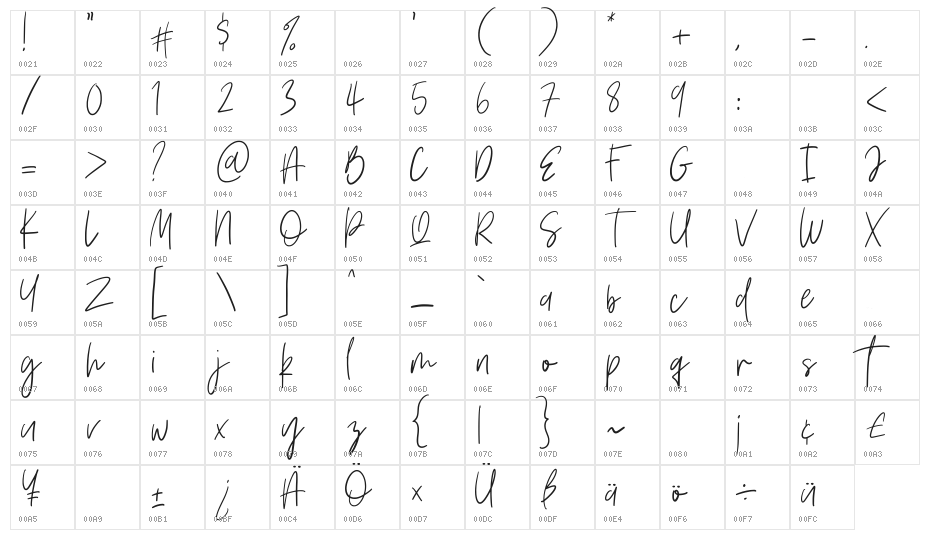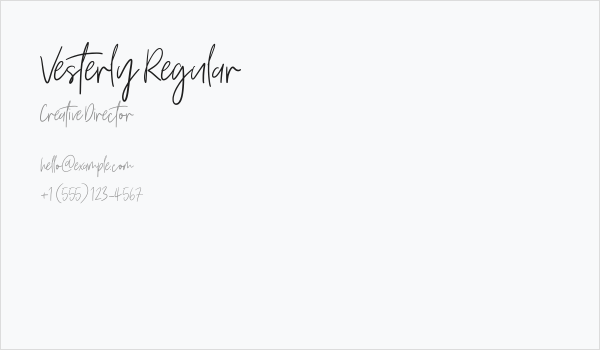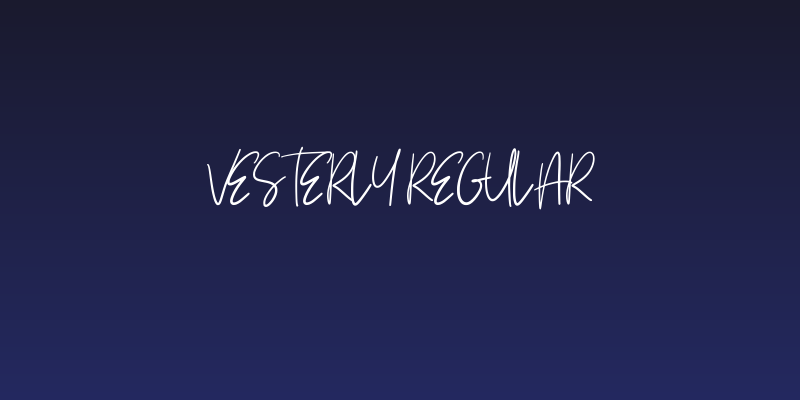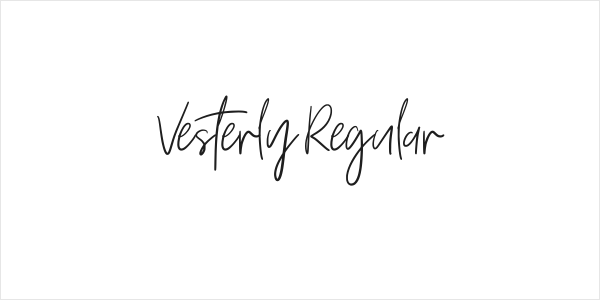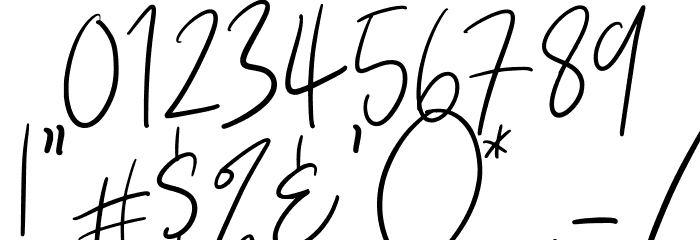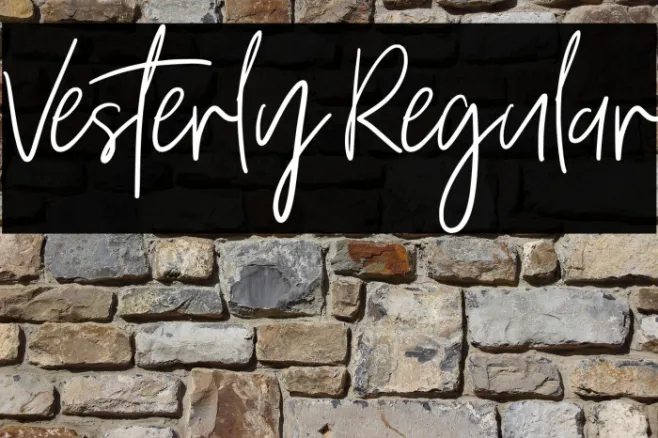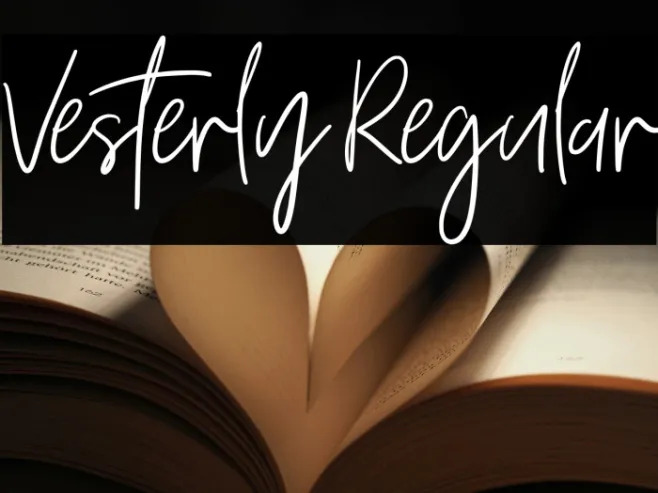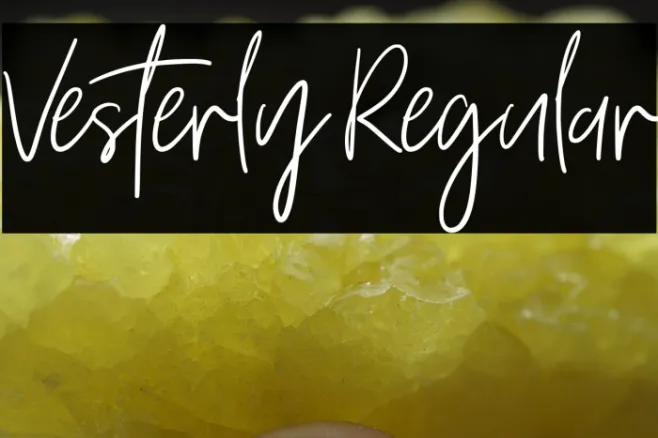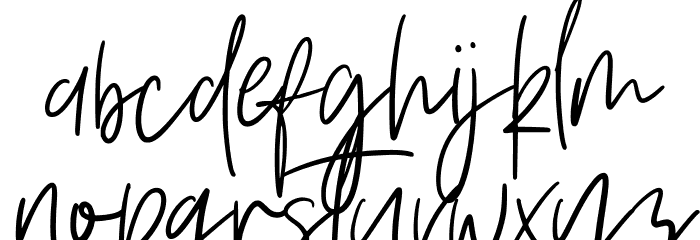
Vesterly Regular Font
Vesterly Regular Description
This font features a dynamic and expressive handwritten style, characterized by its fluid and spontaneous strokes. The letters are crafted with a natural, flowing rhythm, giving it a personal and informal touch. The uppercase and lowercase letters maintain a consistent style, with a slight slant that adds to the casual feel. The numerals and special characters are designed to match the overall aesthetic, ensuring a cohesive look. This font's organic appearance makes it ideal for projects that require a personal or artistic touch.
| Overall Style | Casual, Artistic |
| Use Case | Logos, Headlines, Personal projects |
| Proposed Projects | Ideal for greeting cards, personal branding, artistic projects, and social media graphics. |